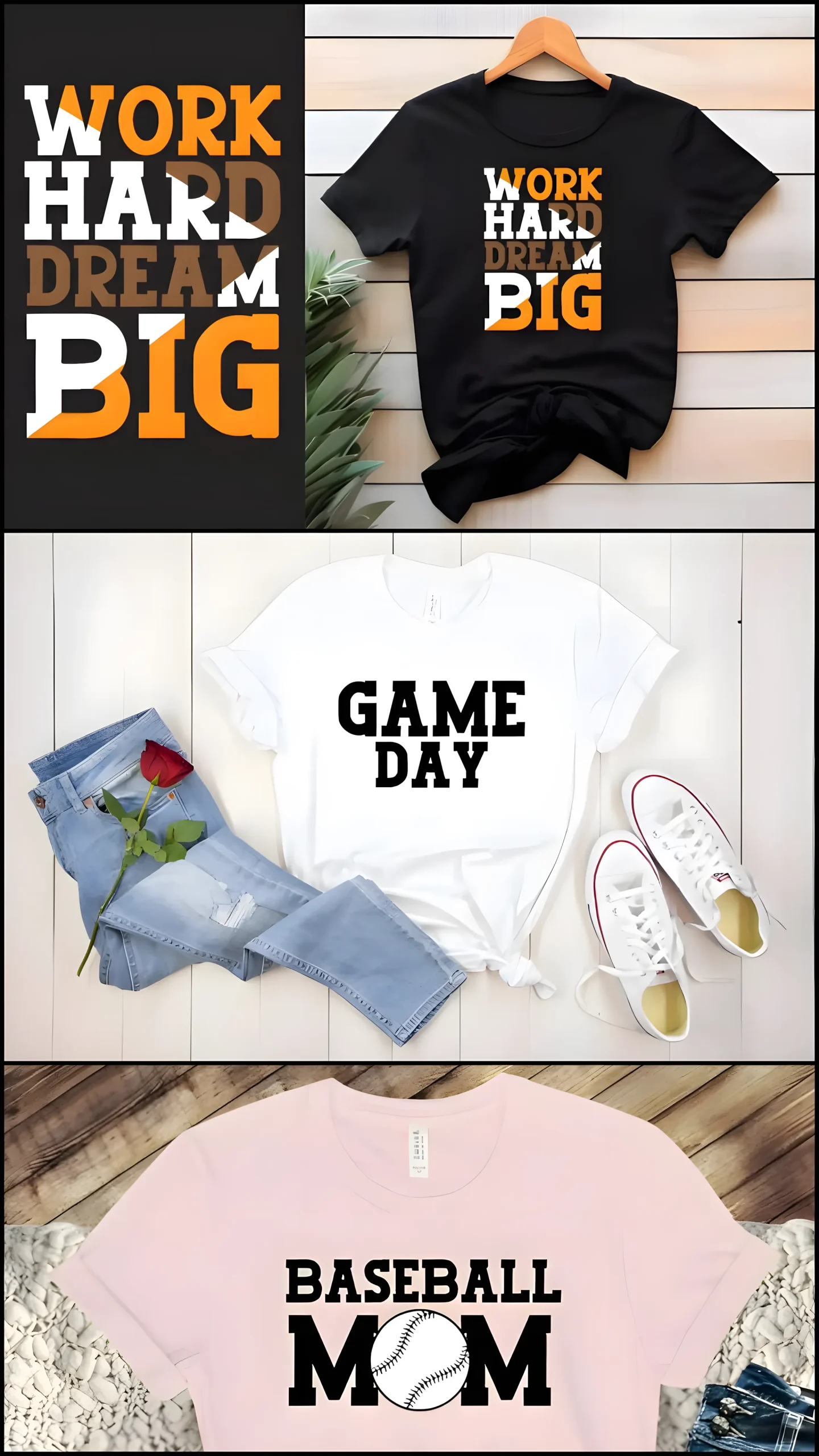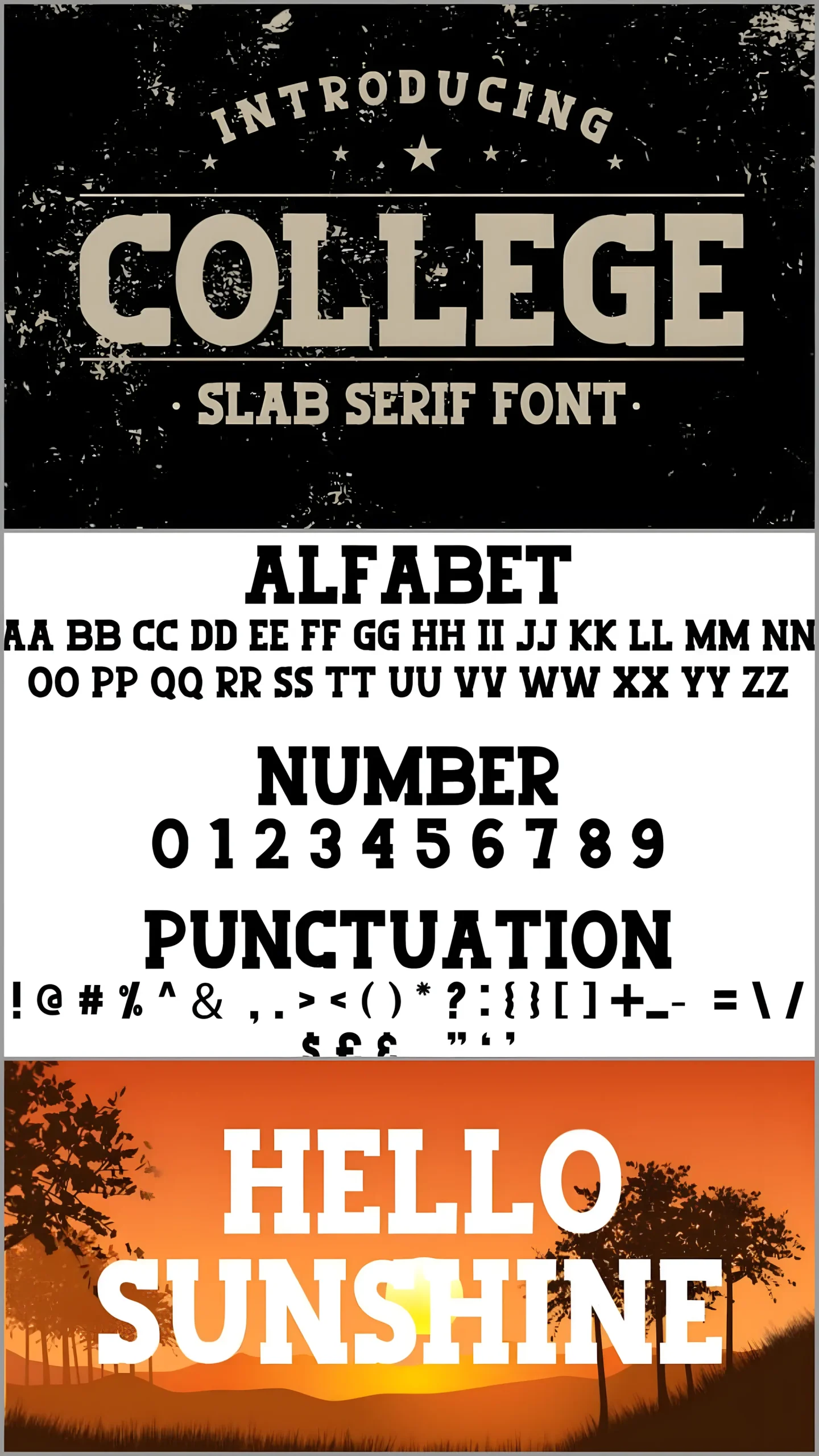
Some fonts instantly bring a specific atmosphere with them. College Font is one of those typefaces. From the first glance, it clearly reflects the visual language commonly seen in university logos, varsity teams, and sports branding. This is a bold slab serif font created to feel strong, confident, and highly readable.
College Font is designed for projects that need structure and impact. It works especially well in designs inspired by education, athletics, and classic American collegiate style.
Visual Style and First Impression
College Font delivers a solid and authoritative look. The letterforms are thick, balanced, and well-defined, with slab serifs that add weight and stability. The overall design feels classic, yet modern enough to fit into contemporary layouts.
The font immediately evokes associations with varsity jackets, sports jerseys, campus signage, and team logos. Despite this strong identity, the characters remain clean and legible, which makes the font practical for real design use rather than purely decorative work.
The visual tone is confident, bold, and professional without being overly aggressive.
A Classic Collegiate Slab Serif
As a slab serif typeface, College Font relies on structure rather than ornamentation. The serifs are firm and rectangular, giving each letter a grounded and stable appearance.
This construction makes the font suitable for:
- university branding
- sports-related designs
- team logos and emblems
- educational materials
The design feels inspired by traditional collegiate typography while remaining flexible enough for modern applications.
Practical Design Applications
Sports Logos and Team Branding
College Font fits naturally into sports branding. Logos, badges, and emblems benefit from its strong structure and high visibility. The font holds up well in large formats and remains readable even from a distance.
It works particularly well for:
- varsity team logos
- sports apparel
- team banners
- athletic promotions
The slab serif style reinforces a sense of tradition and strength.
Apparel, Merchandise, and Print-on-Demand
College Font translates cleanly to physical products. The bold shapes work well on:
- t-shirts
- hoodies
- hats
- mugs
- stickers
Because the letters are thick and evenly spaced, the font performs reliably in printing, embroidery, and cutting applications. This makes it suitable for merchandise and print-on-demand projects.
Posters, Flyers, and Social Media Graphics
In promotional design, visibility matters. College Font performs well in posters and flyers where text needs to stand out quickly. Headlines feel bold and confident without requiring additional effects.
It also works well in digital graphics such as:
- social media posts
- event announcements
- promotional banners
The font maintains clarity across both print and screen formats.
Readability and Font Behavior
Despite its bold appearance, College Font remains easy to read. The spacing and proportions allow text to stay clear at various sizes, especially in short phrases and headlines.
As a display font, it works best for:
- titles
- headlines
- featured text
For longer text blocks, pairing it with a simple sans-serif font helps maintain balance and visual comfort.
Emotional Tone and Design Feel
The emotional tone of College Font is strong, confident, and structured. It communicates reliability and tradition while still feeling energetic.
This makes it ideal for projects that aim to convey:
- teamwork
- achievement
- school spirit
- athletic pride
The font supports messages that need to feel solid and trustworthy rather than playful or decorative.
Where College Font Fits Best
College Font works especially well for:
- collegiate and university designs
- sports branding and team logos
- apparel and merchandise
- posters and promotional graphics
- signage and craft projects
It is not intended for long-form reading, but as a bold slab serif display font, it performs exactly as designed.
College Font captures the essence of classic collegiate typography. With its bold slab serif construction and strong visual presence, it delivers clarity, confidence, and tradition in one package.
For designers looking to create sports-inspired, educational, or varsity-style visuals, College Font offers a reliable and versatile solution. Used thoughtfully, it brings structure and impact to designs that need to feel strong, readable, and timeless.